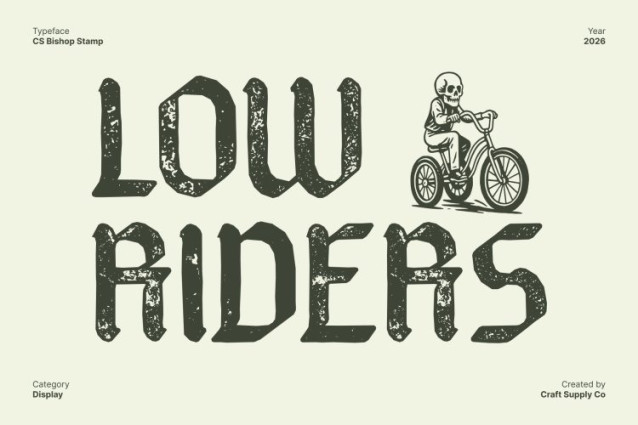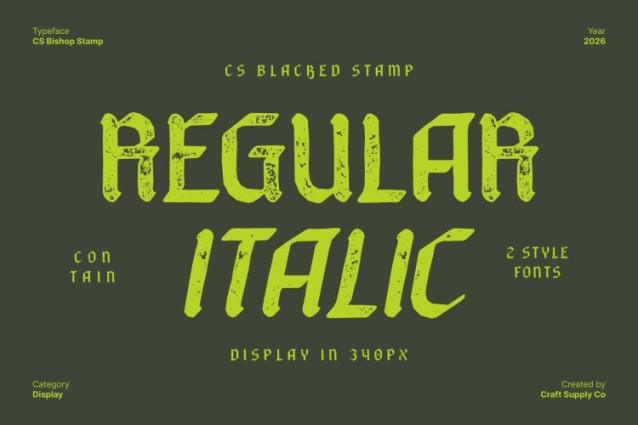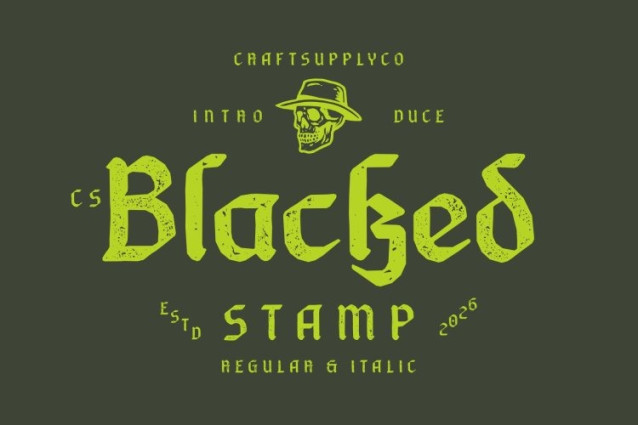
CS Blacked Stamp Font
CS Blacked Stamp Font This is a striking display serif font rooted in the timeless tradition of Blackletter typography. Featuring intricate structures, sharp angles, and dramatic contrasts, it delivers a strong historical presence. Enhanced with a stamp effect, the font gains textured surfaces and subtle distress, evoking the look of aged manuscripts, old print presses, and traditional stamped lettering.
Strong and Authoritative with Vintage Texture
The bold and commanding nature of makes it instantly powerful. Its ornate letterforms project authority and grandeur, while the stamped texture adds depth and authenticity. This combination reinforces a sense of heritage and seriousness, making the font ideal for designs that require formality, prestige, and a historical atmosphere.
Visual Uniqueness with Old-World Aesthetic
Beyond its classical roots, this font offers a captivating visual identity through its detailed forms and textured finish. The stamp effect introduces organic imperfections that enhance its dramatic flair, giving designs a rich, tactile quality reminiscent of antique documents, vintage signage, and ceremonial typography.
Versatile for Historical, Gothic, and Luxurious Designs
Perfect for prestigious branding, elegant invitations, editorial titles, packaging, or any project that seeks a historical or luxurious feel, delivers sophistication with character. Its classic Blackletter style combined with a vintage stamped finish ensures every design stands out with authenticity, depth, and timeless elegance.